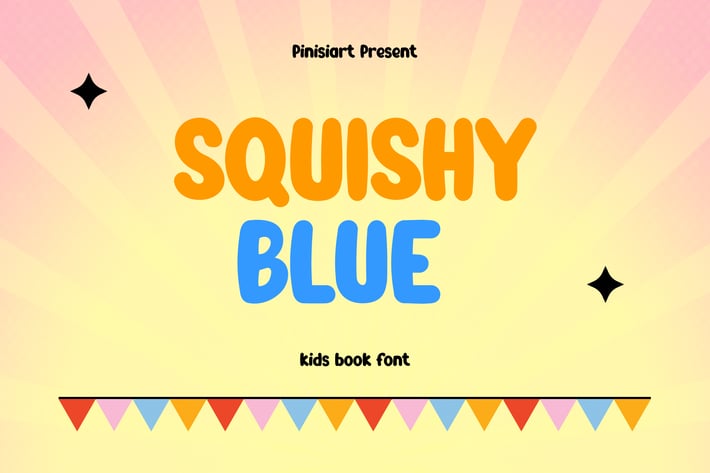
Squishy Blue - Kids Book Font
Cartoon feel with great read-ability through out the whole sentences.
Rounded corner and a bit of irregularity on the baseline makes the font more kid friendly.
Suit perfectly for encouraging kids themes books market, economic poster, stationary, school supplies font, youtube covers, youtube thumbnails, social media page covers and so on...